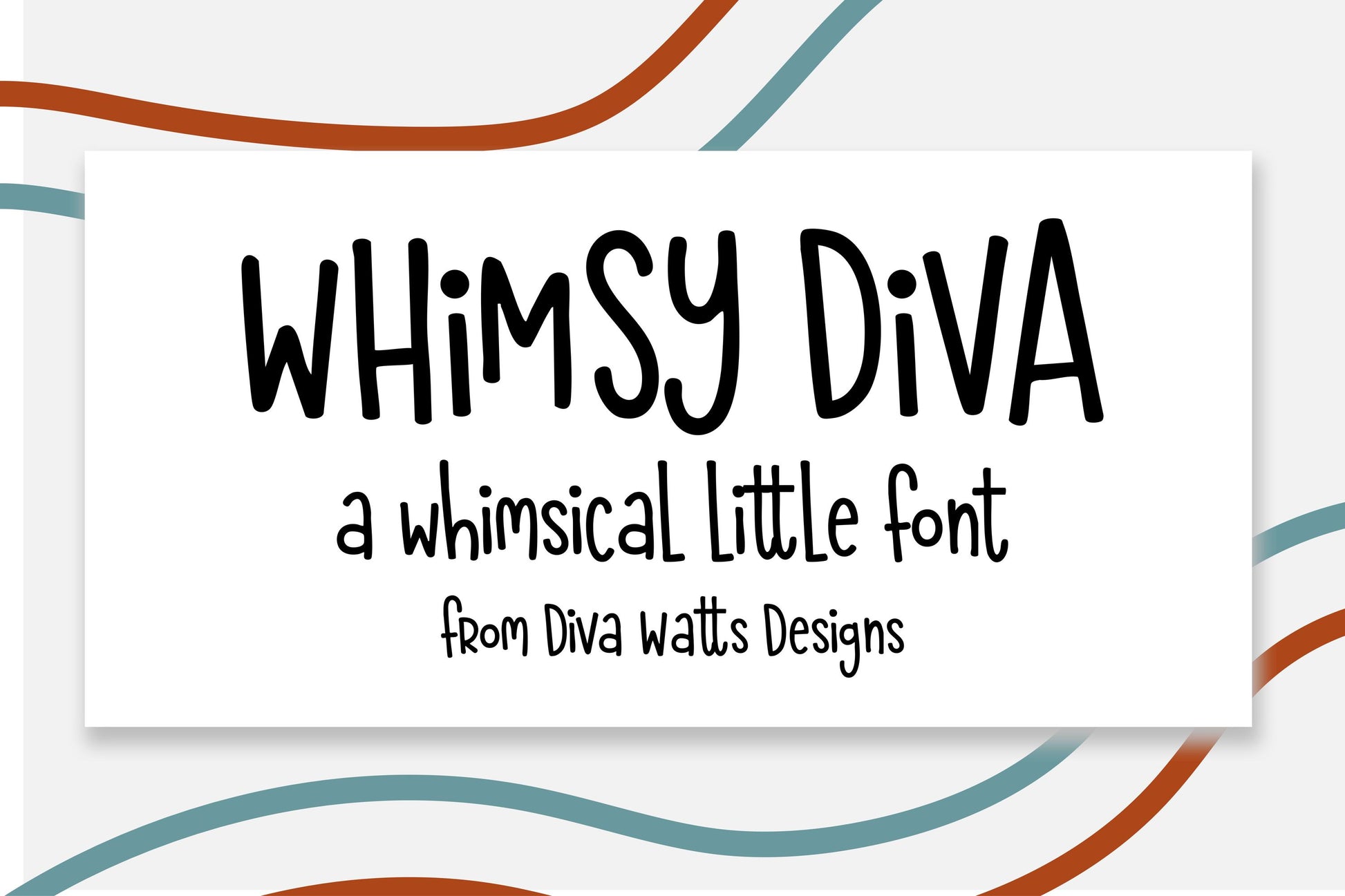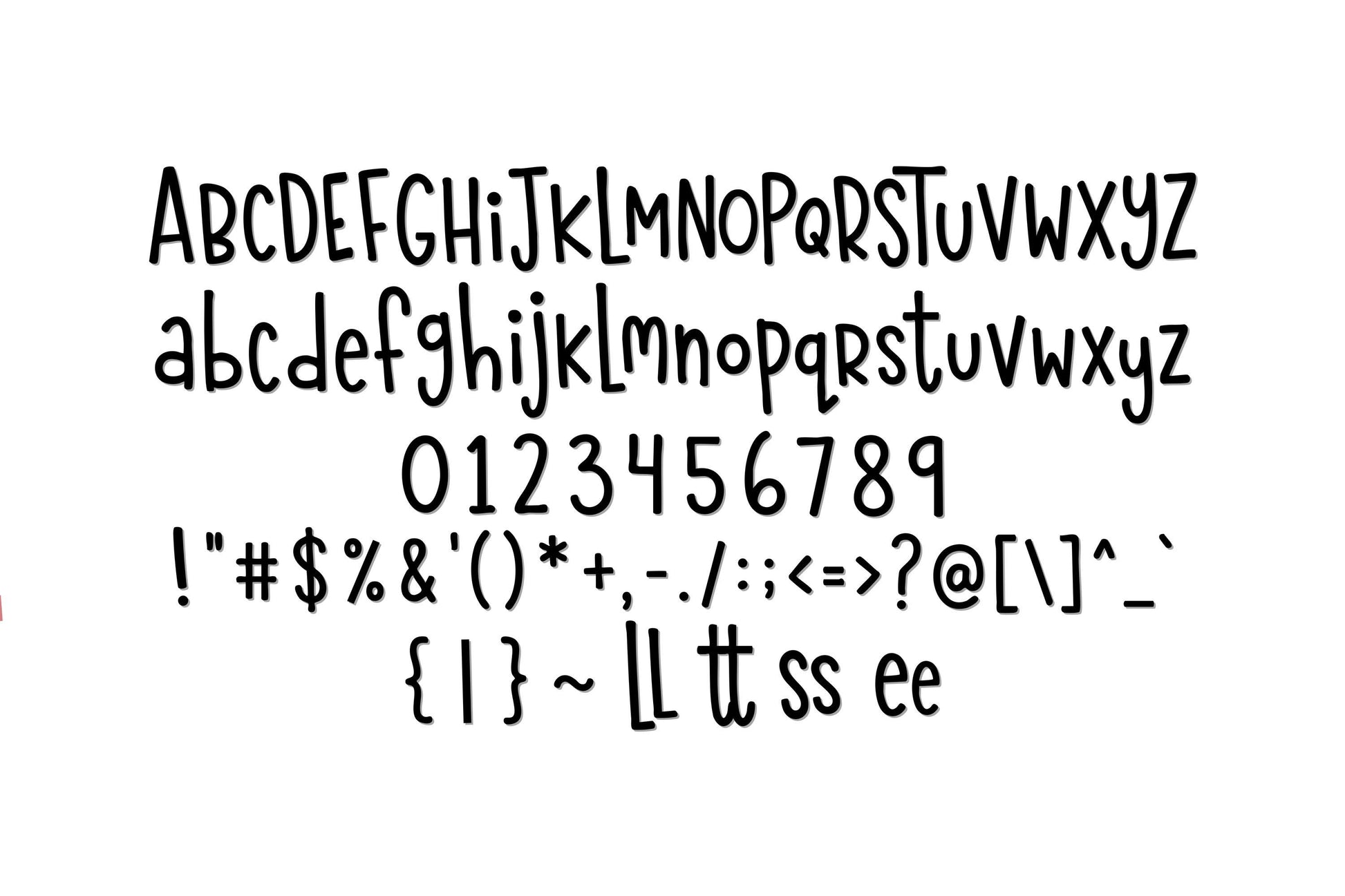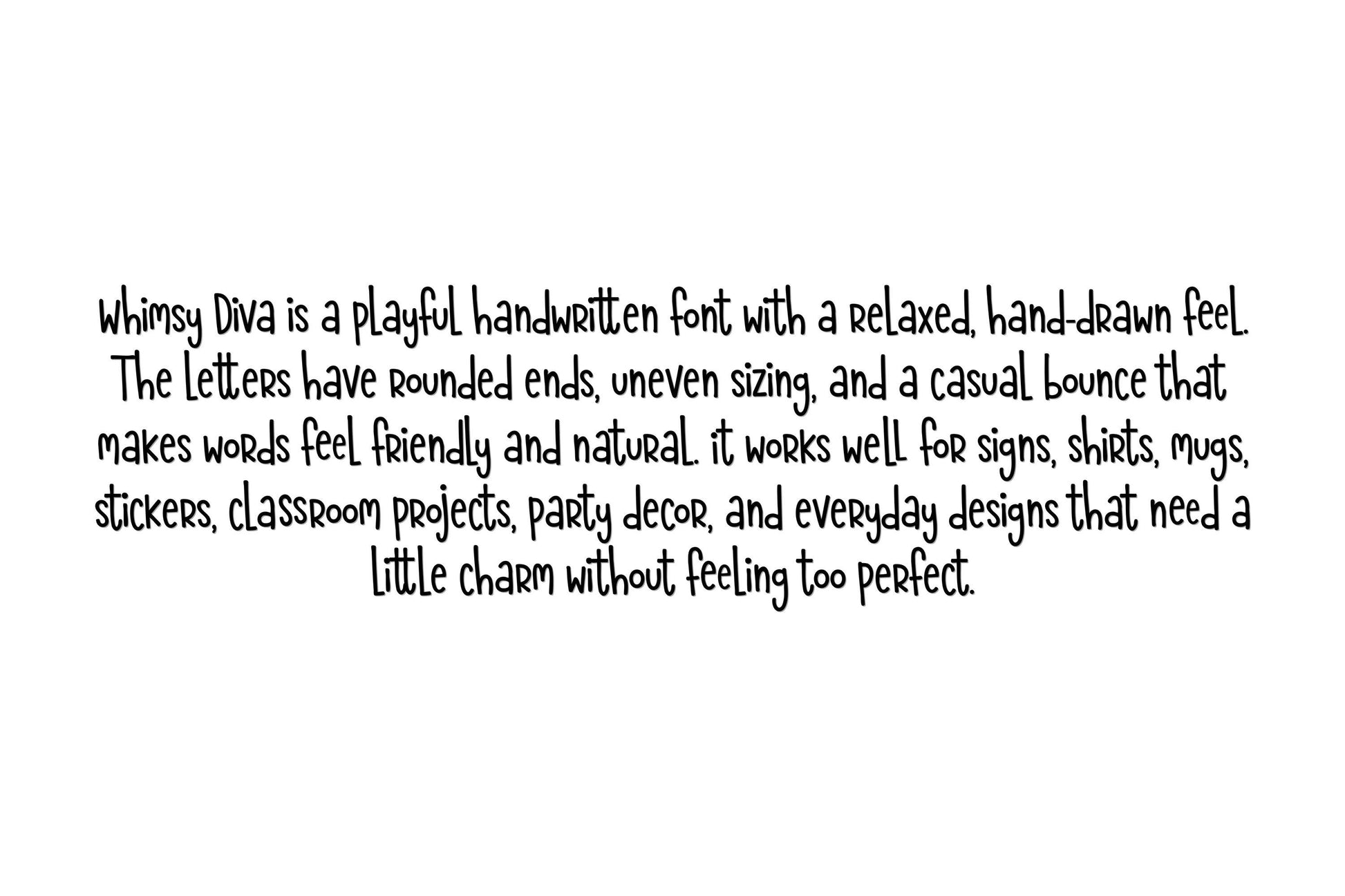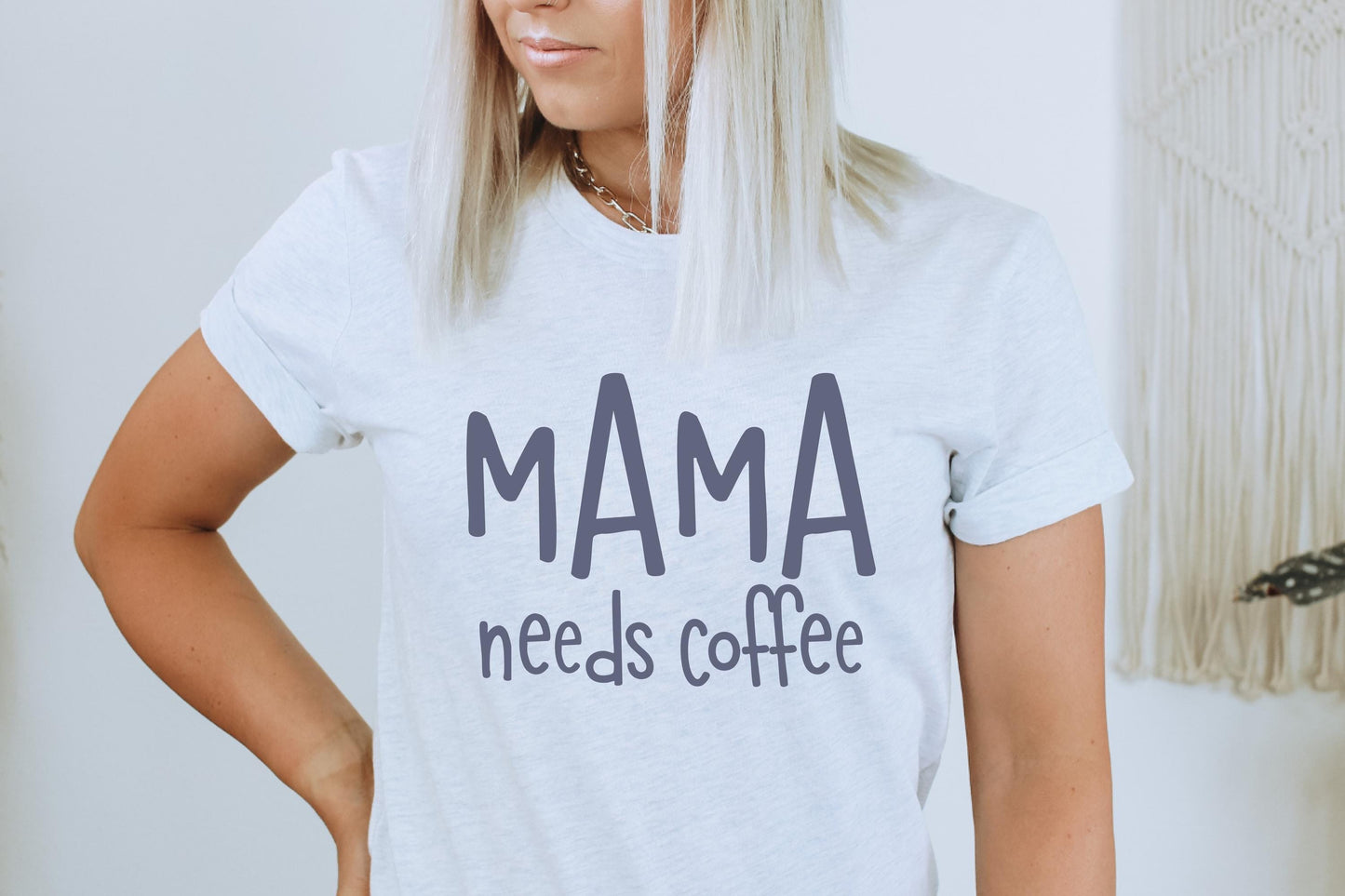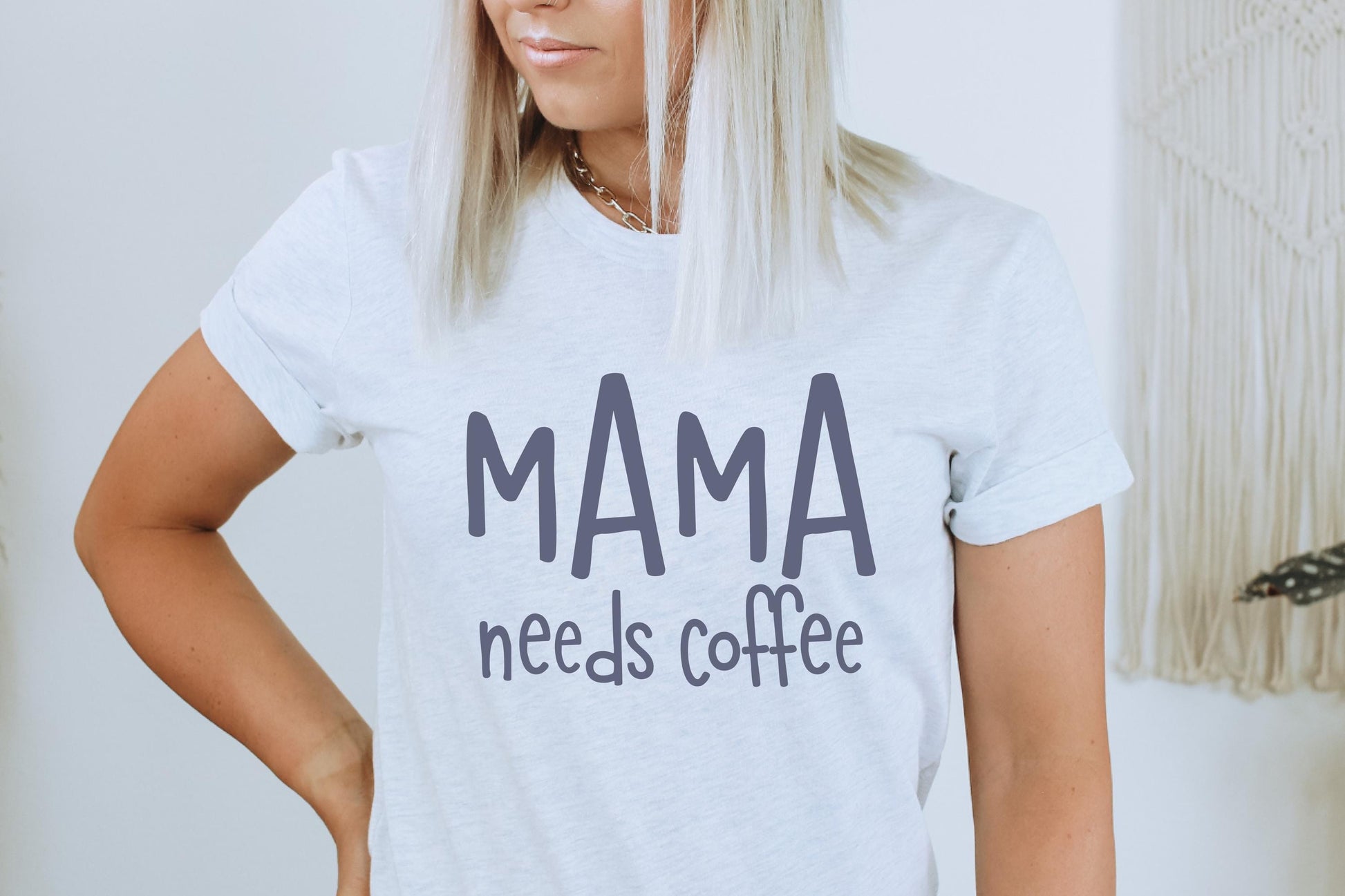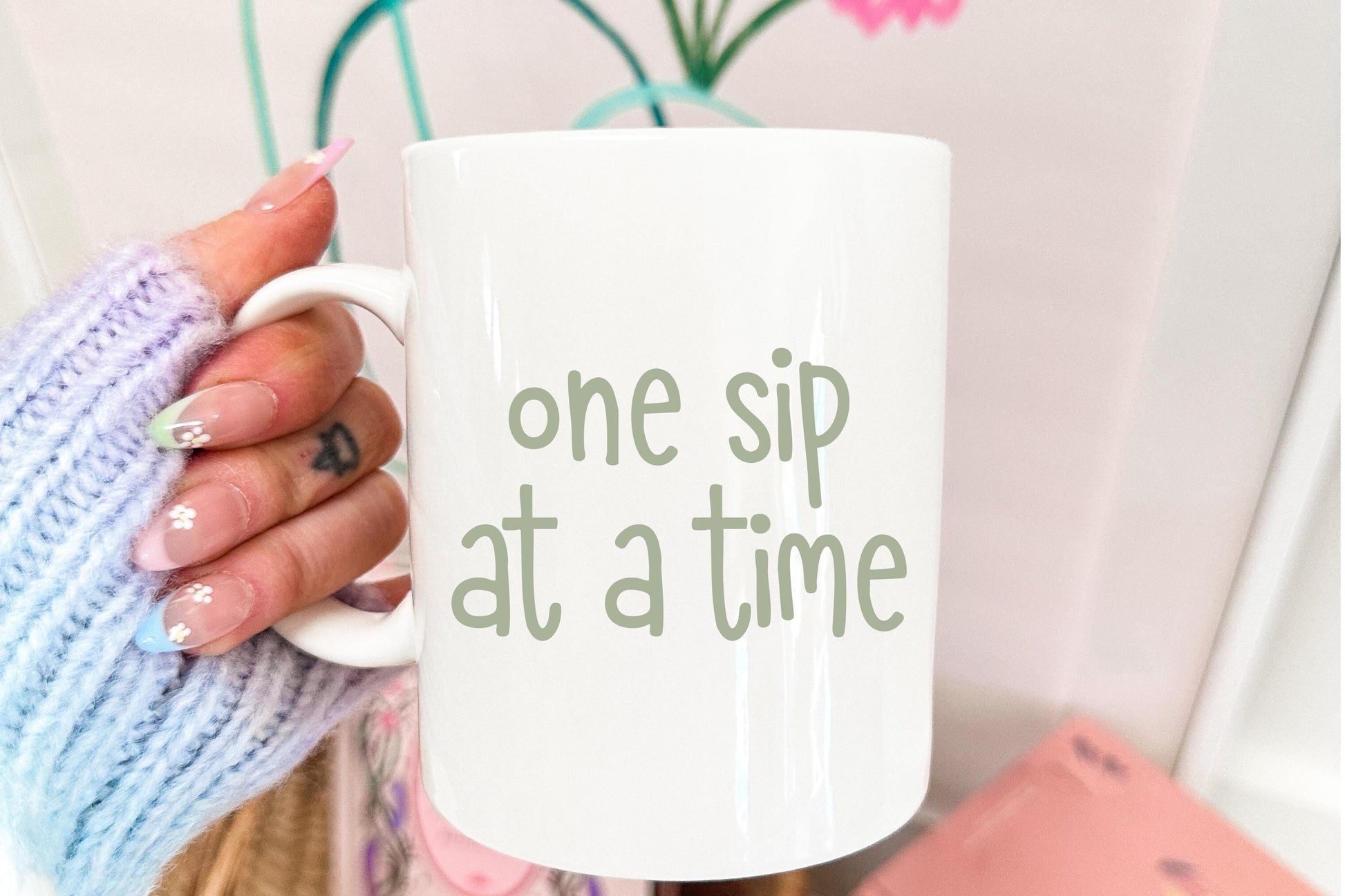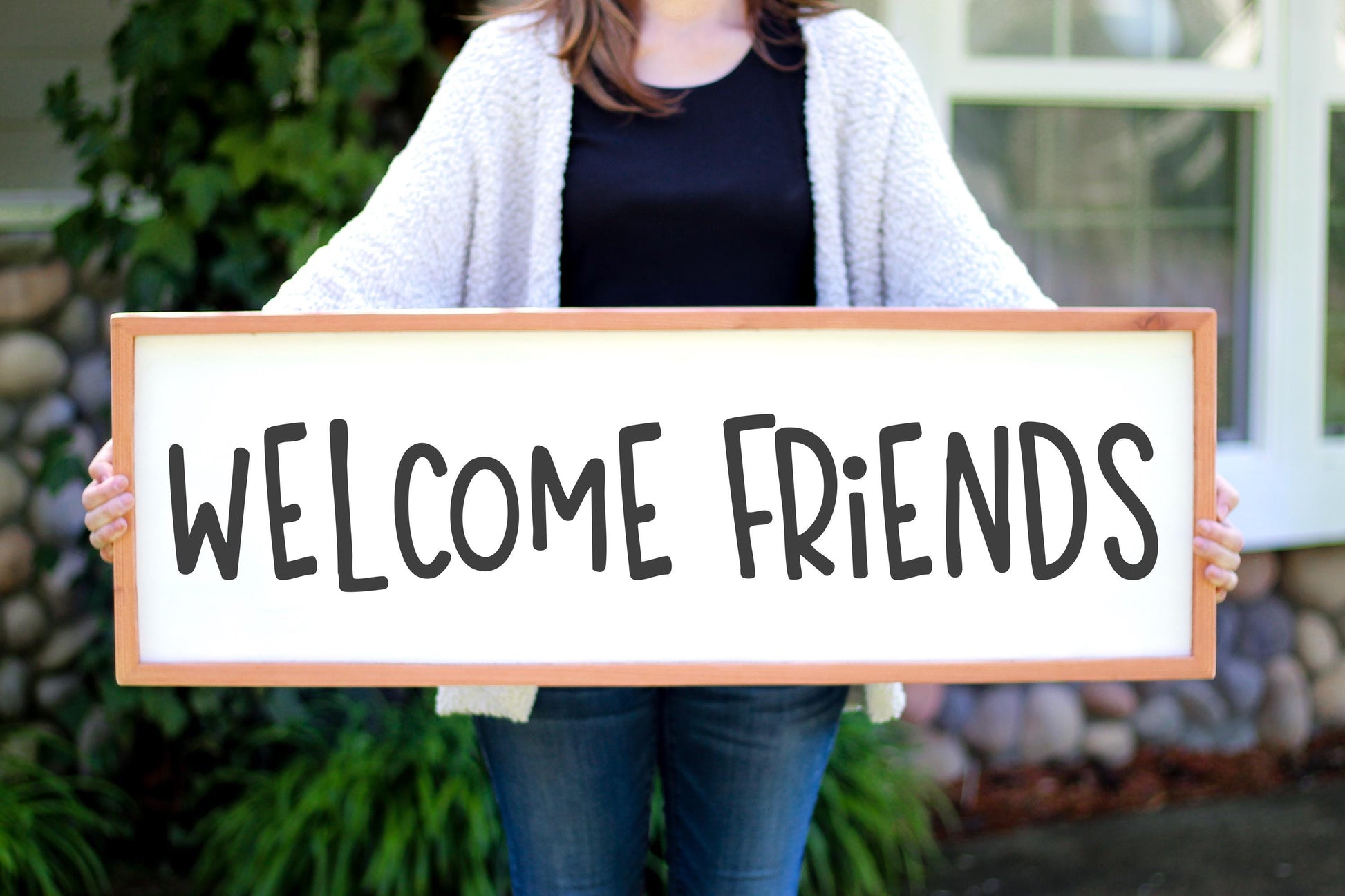
Whimsy Diva Font | Whimsical Handwritten Display Font for Signs, Crafts, Sublimation, Cricut Projects, Branding, and DIY Designs
Add playful personality to your creative projects with Whimsy Diva Font, a whimsical handwritten display font designed to bring charm and character to every design. With tall, hand-drawn letterforms and a fun boutique-inspired style, this font is perfect for signs, door hangers, apparel, sublimation, branding, invitations, and more. Whether you're creating products to sell or personal projects you'll love, this font helps your designs stand out with a unique handcrafted feel.
Whimsy Diva combines whimsical style with excellent readability, making it ideal for both large statement pieces and smaller design elements. The clean character shapes cut beautifully for crafting applications and work seamlessly across digital and print projects.
Perfect For:
• Door hanger signs
• Welcome signs
• Nursery decor
• Children's apparel
• Sublimation designs
• T-shirt graphics
• Stickers and decals
• Small business branding
• Social media graphics
• Invitations and party decor
• Seasonal projects
• Laser-cut word art
• Vinyl projects
• Print-on-demand designs
Font Style:
• Whimsical handwritten font
• Playful display lettering
• Hand-drawn appearance
• Boutique-inspired aesthetic
• Tall character design
• Clean and easy to read
• Fun and cheerful personality